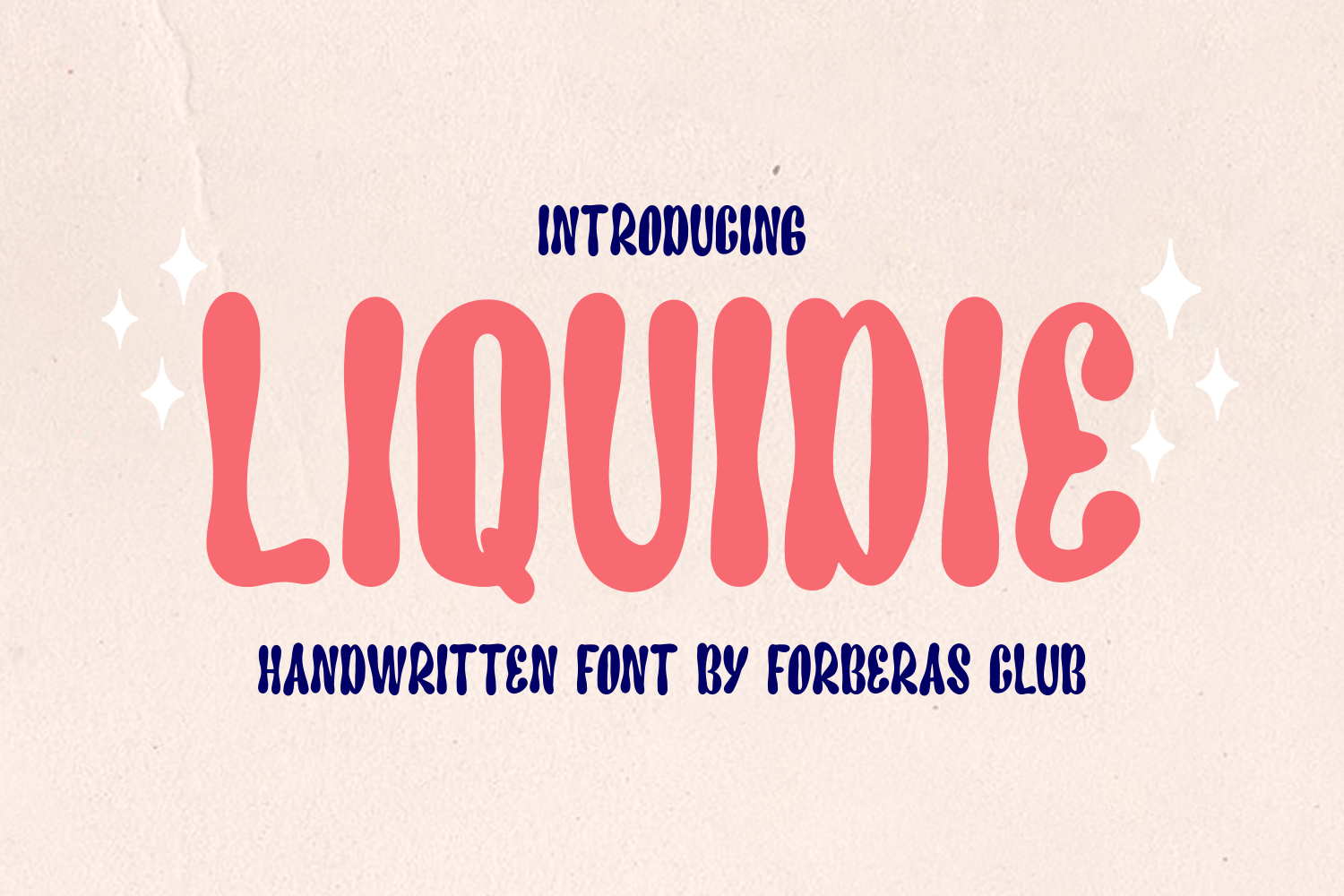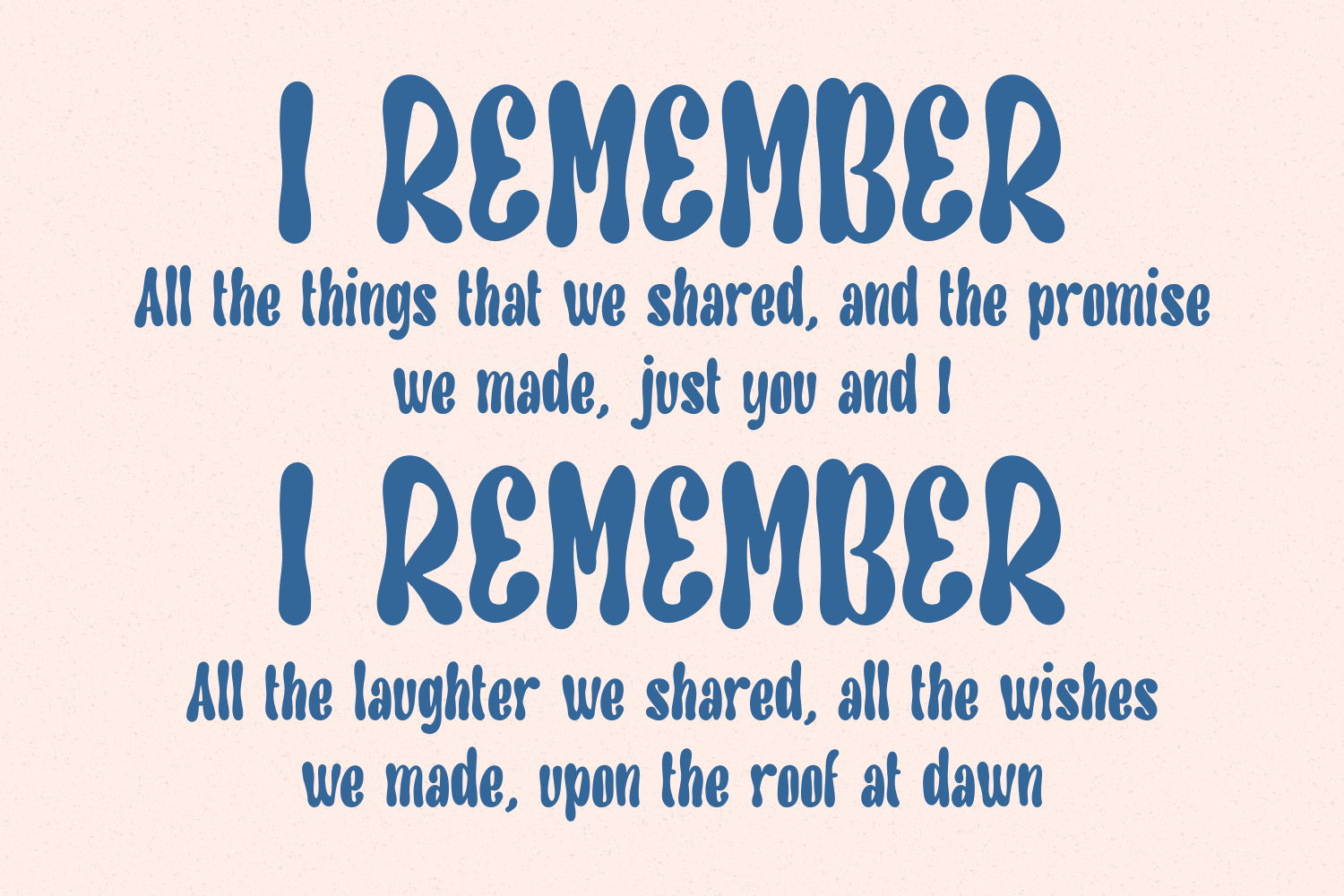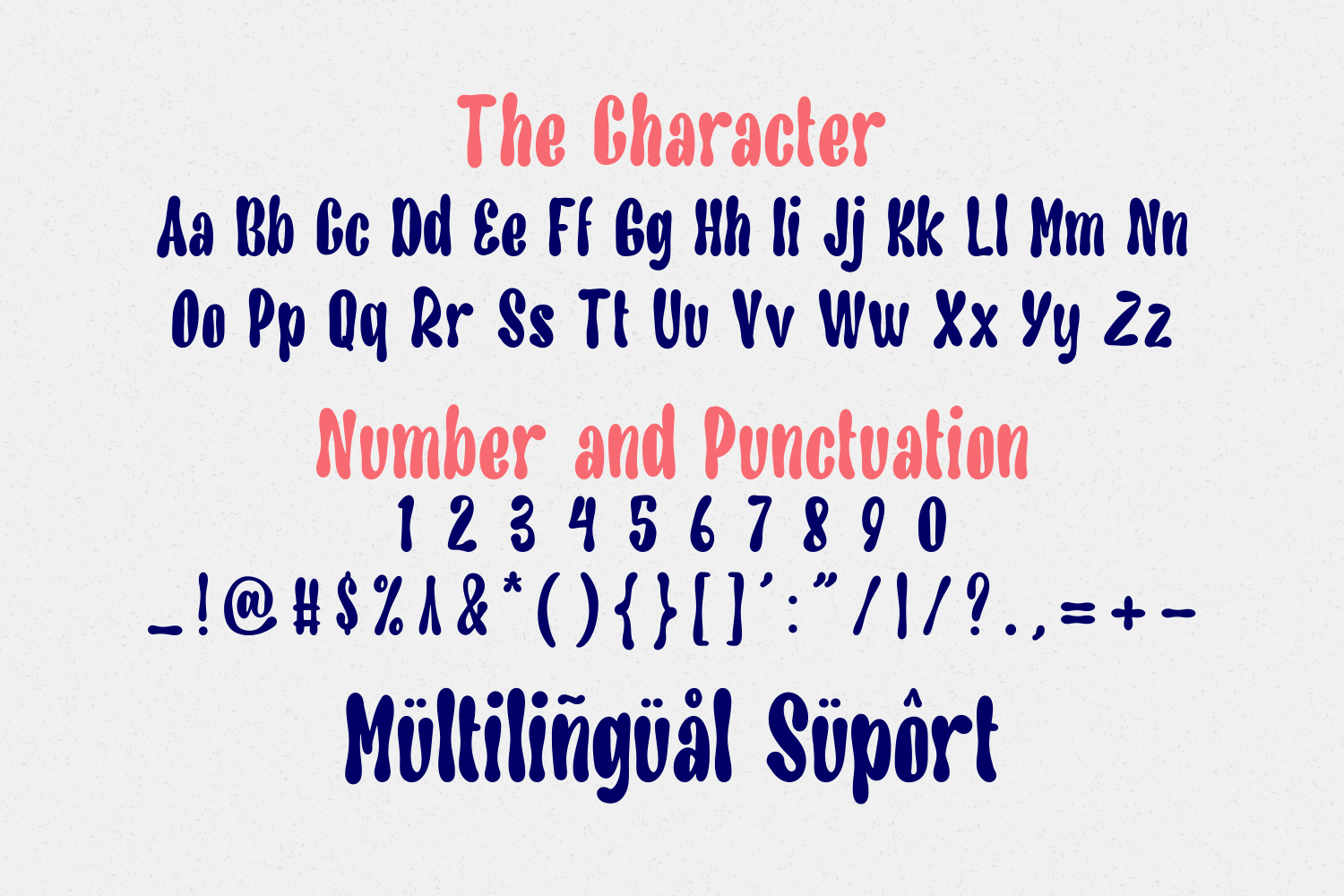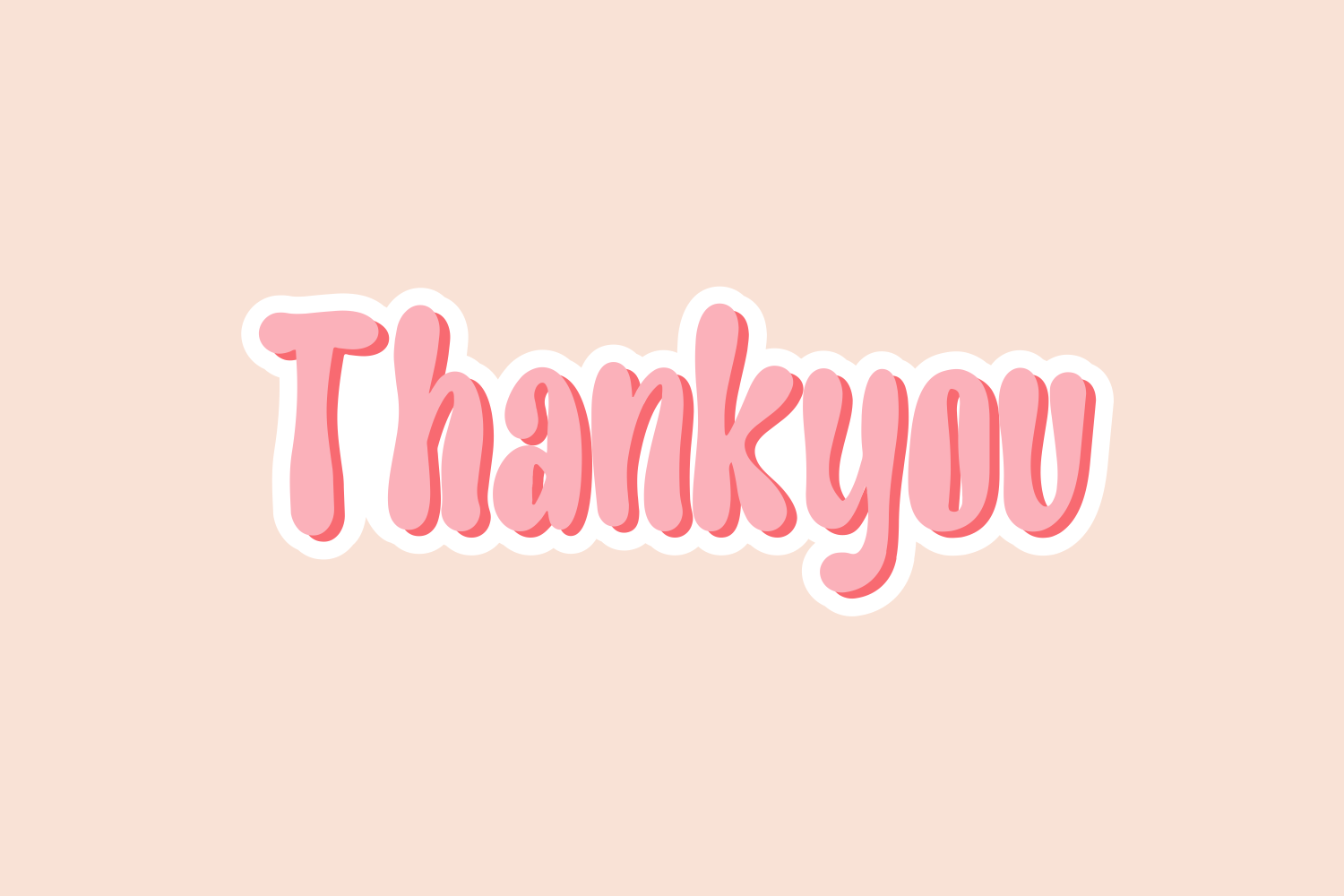
Liquidie Free Font
Introducing Liquidie Free Font, a sophisticated and luxurious display font designed to captivate your audience and elevate your branding to new heights. With its fancy and elegant appeal, this font leaves a lasting impression wherever it’s used. Watch your projects come alive with Liquidie’s enchanting presence. Whether it’s captivating headings, distinctive logos, eye-catching ads, impactful printed quotes, alluring packaging, or even your website and social media branding, Liquidie brings a touch of wonder and elegance to every aspect. Each letter boasts a unique and beautiful touch, breathing life into your designs. Set your creativity free with Liquidie and witness the magic it brings to your visual creations. This free typeface was designed by a talented Forberas Club. If you like it don’t forget to check out the full version.